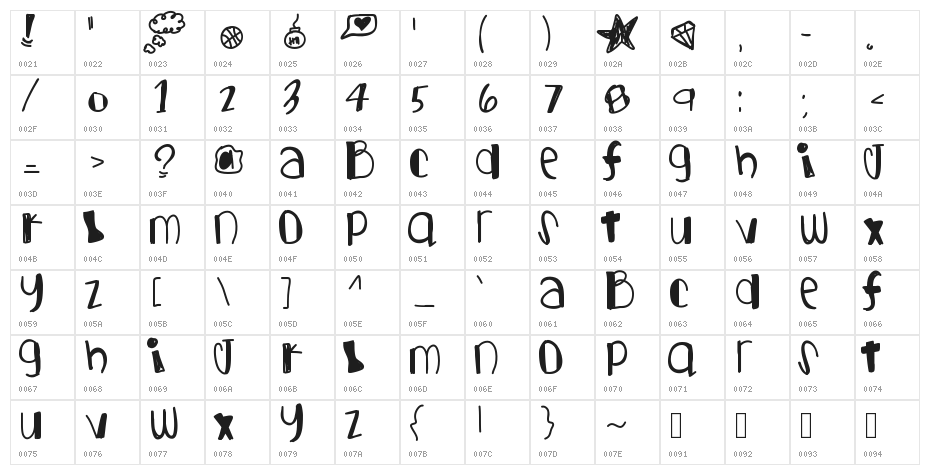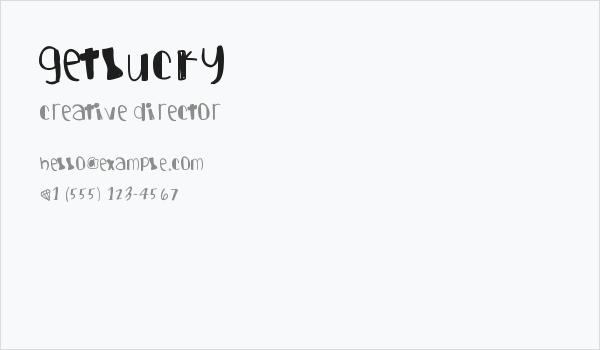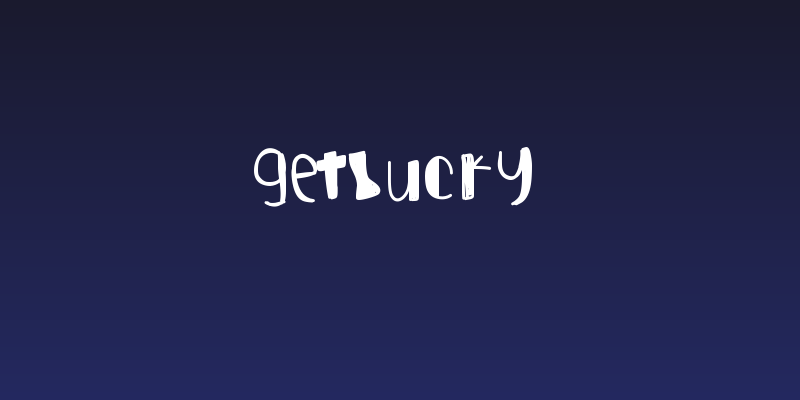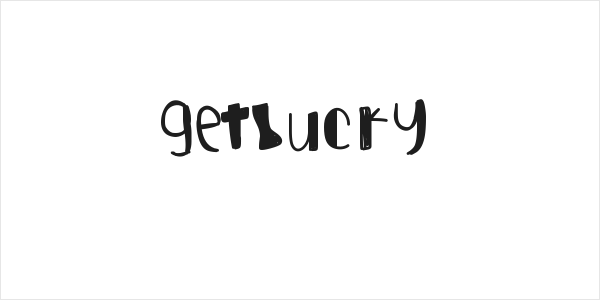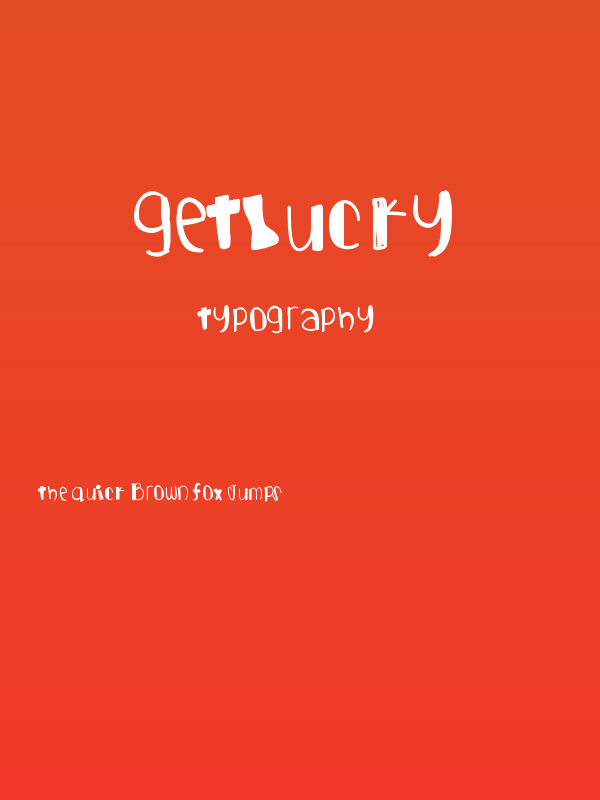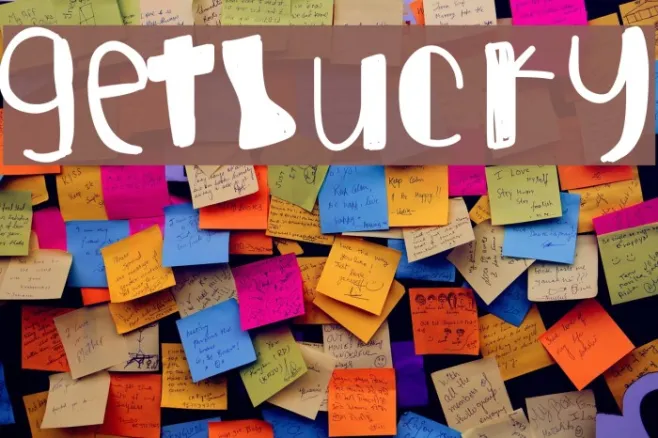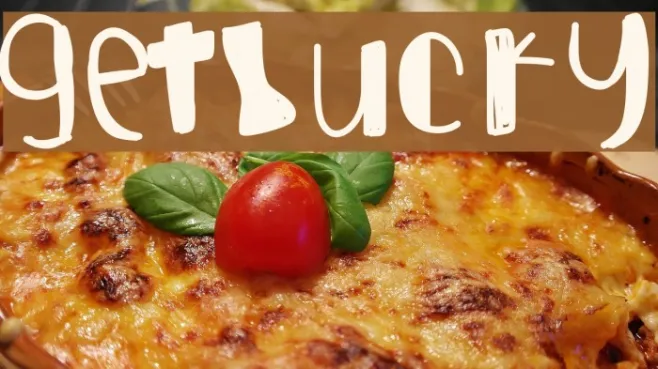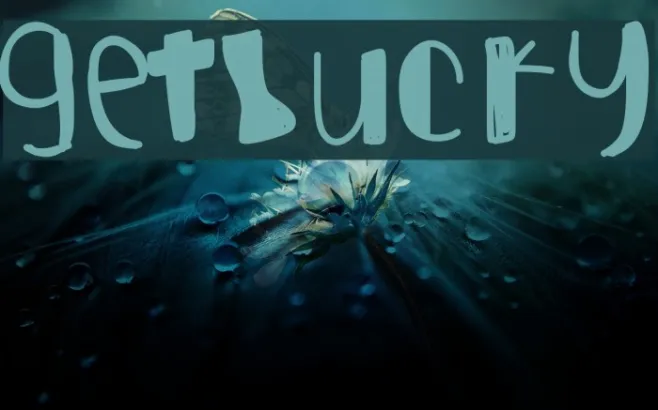
GetLucky Font
GetLucky Description
This playful and quirky font features a hand-drawn style with irregular shapes and varying stroke widths, giving it a whimsical and informal appearance. The characters are bold and slightly uneven, adding to the charm and uniqueness of the design. The uppercase and lowercase letters maintain a consistent style, with some letters having exaggerated features, such as elongated stems or oversized bowls. The numbers and special characters follow the same playful aesthetic, making the font suitable for creative and fun projects.
GETLUCKY UPPERCASE
GETLUCKY LOWERCASE
GETLUCKY OTHER CHARS
| Proposed Projects | Ideal for children's books, playful branding, greeting cards, and creative posters. |